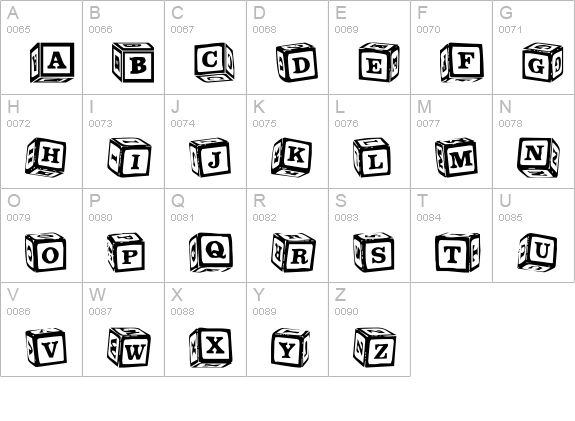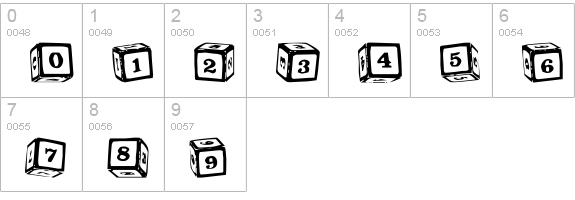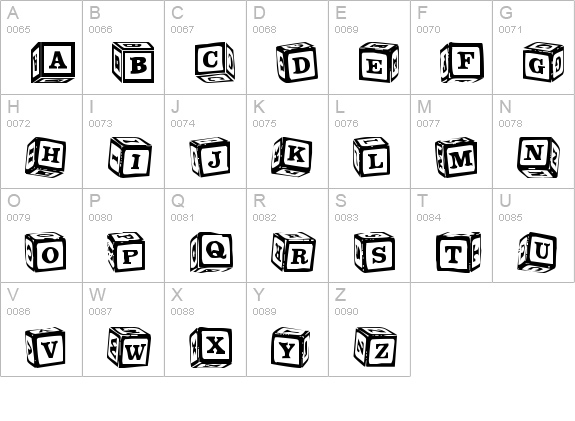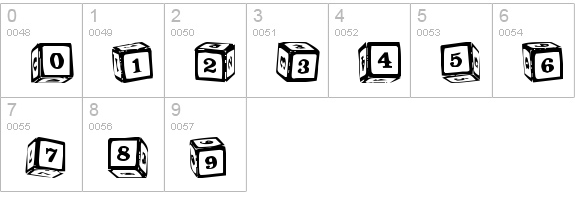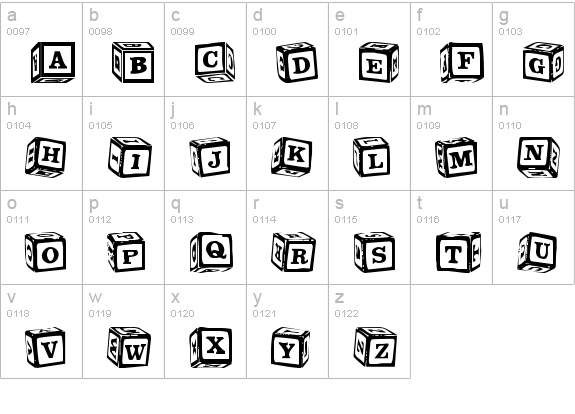
Introducing LMS Lance's Letter Blocks font, a captivating and playful typeface that adds a touch of whimsy to any project. This unique font features blocky letterforms with a hand-drawn aesthetic, perfect for creating eye-catching designs that stand out. Whether you're working on a poster, logo, or social media graphic, LMS Lance's Letter Blocks font is sure to make a statement. The best part? This charming font is available for free download at FontsMarket.com. Simply head over to the website to grab your copy and start using LMS Lance's Letter Blocks font in your projects today. With its bold character and versatile style, this font is a must-have for any designer looking to add a fun and creative element to their work. Don't miss out on the opportunity to enhance your designs with this delightful typeface - download LMS Lance's Letter Blocks font now!